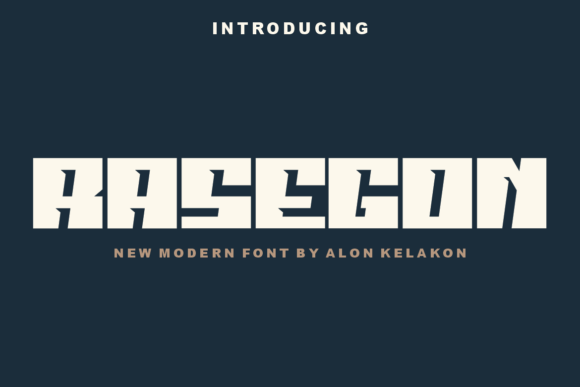
Dive into the world of Rasegon Font, a remarkable sans serif font that will transform your designs into captivating masterpieces. Crafted by the talented alonkelakon, Rasegon's distinctive character will elevate your projects to new heights of creativity and impact.
With its clean lines and striking presence, Rasegon Font is the perfect choice for those seeking a font that exudes both elegance and power. Whether you're designing logos, creating posters, or crafting movie titles, Rasegon's versatility knows no bounds.
Imagine your words leaping off the page, demanding attention with their bold and confident strokes. Rasegon Font is a visual symphony that will command attention and leave a lasting impression on your audience.
Unleash your creativity and let Rasegon Font be your muse. Its adaptability shines in various mediums, from clothing and packaging to album covers and movie scenes. Its timeless style will make your designs stand the test of time, ensuring they remain relevant and visually appealing for years to come.